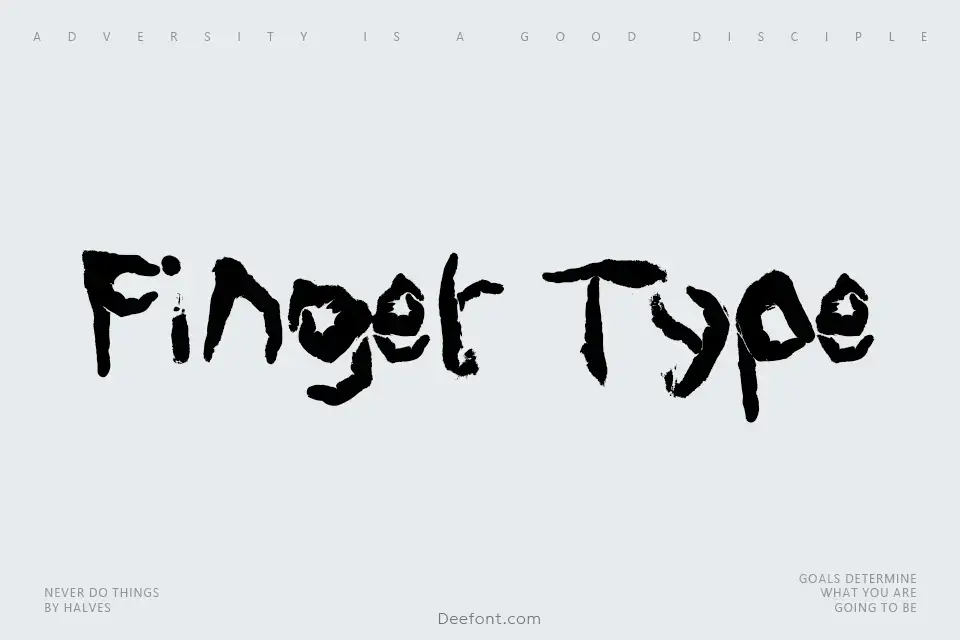
Finger Type Font
Finger Type is an authentic handwritten display font created by photocopying the designer’s own hands and fingers. This unique font captures the raw, organic quality of genuine handwriting with natural imperfections and organic letterforms. Featuring 233 glyphs with full character support, Finger Type delivers a distinctive casual aesthetic ideal for posters, greeting cards, creative projects, and display purposes where authenticity and personality matter more than formal perfection.